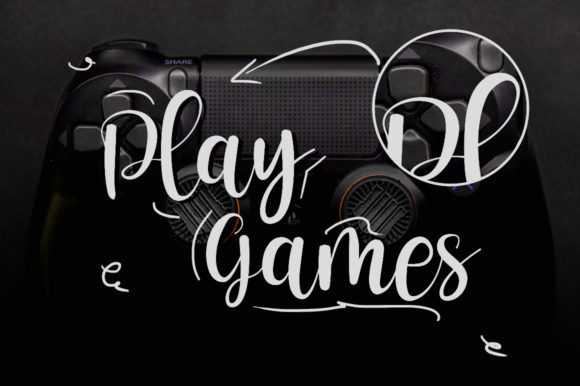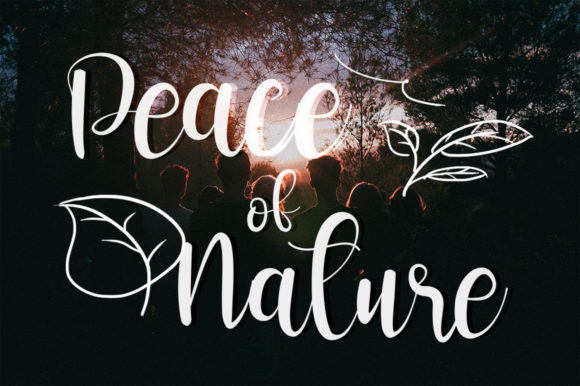
Veldanava Script Font Font
db-ku.com - Script & Handwritten -- Veldanava Script is an elegant script font with a contemporary atmosphere and impeccable form, inspired by timeless classic calligraphy. Fall for its ravishing style and use it to create gorgeous wedding invitations, beautiful stationary art, eye-catching social media posts, and much more!